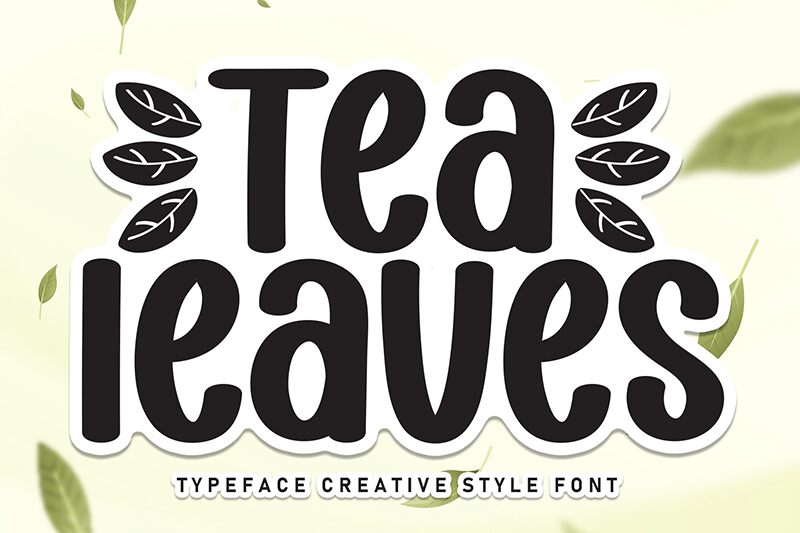
Tea Leaves
Tea Leaves font by Scratchones is a condensed, cartoon display typeface with an organic and warm feel. Its retro-inspired appearance gives it a textured look that combines perfectly with the casual aesthetic each letter possesses. Achieve unique visuals with this handmade, free display font.
Put your skills to the test and bring to life your book covers, T-shirt designs, personalized notebooks, branding identity projects, greeting cards and banners using Tea Leaves. Finish magazine covers headers, subheaders in websites and apps or food-related logos for amazing results!